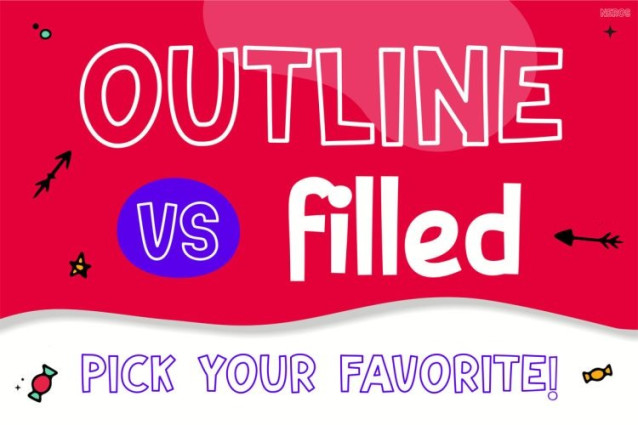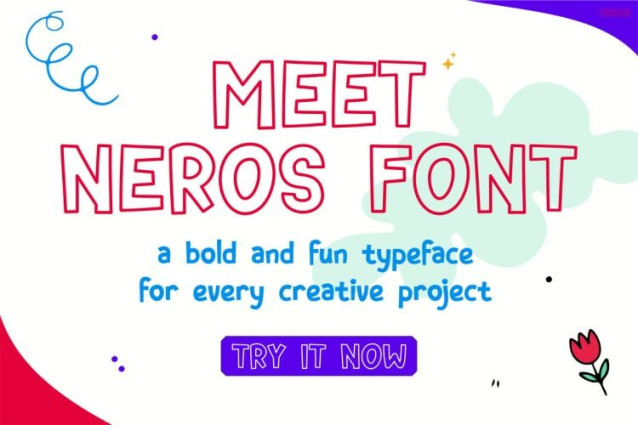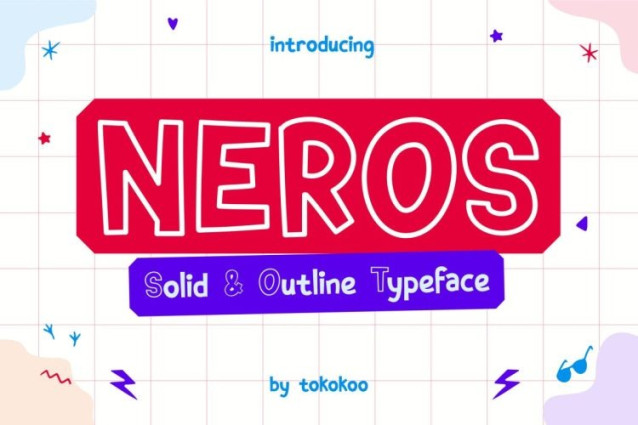
Neros Font
Neros Font bursts onto the screen with bold outlines, cheerful shapes, and a lively personality that instantly grabs attention. From the first glance, this font feels fun, expressive, and full of imagination. Its unique outline-and-filled style creates visual contrast that makes every word pop, while still staying clean and readable. Because of its rounded forms and friendly proportions, NEROS feels approachable and joyful. At the same time, its strong structure keeps designs clear and impactful. As a result, this font works beautifully for both playful headlines and eye-catching statements. Moreover, the character set feels balanced and consistent, which helps designers build cohesive visuals across different media. Overall, NEROS stands out as a font that combines fun aesthetics with practical function.
Kids Font NEROS is designed to bring creativity to life through bold display lettering and playful details. Each character carries a dynamic outline style that adds depth and personality to any layout. In addition, the font offers excellent legibility, even at larger sizes, making it ideal for posters, banners, and digital screens. Because the letterforms are simple yet expressive, NEROS adapts well to colorful designs, illustrations, and youthful themes. Furthermore, its energetic vibe makes it perfect for projects that need to feel happy, optimistic, and engaging. Whether used for short phrases or strong titles, this font consistently delivers visual impact without overwhelming the design.
Perfect For
Kids Font NEROS is perfect for designers, content creators, and brands that target kids, families, and playful audiences. It works especially well for children’s branding, birthday invitations, school projects, party posters, and educational materials. In addition, it suits social media graphics, merchandise, packaging, and creative campaigns that aim to feel friendly and modern. Small businesses, event organizers, and creative studios can also rely on NEROS to create cheerful branding that feels memorable and fun. Because of its versatility, both beginners and professional designers can use this font with confidence.